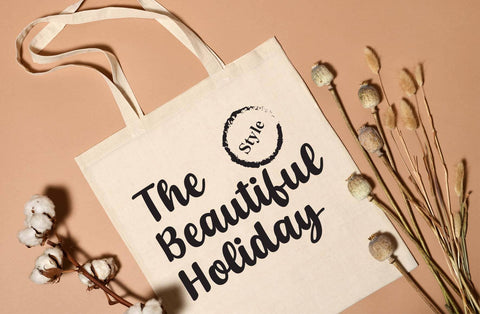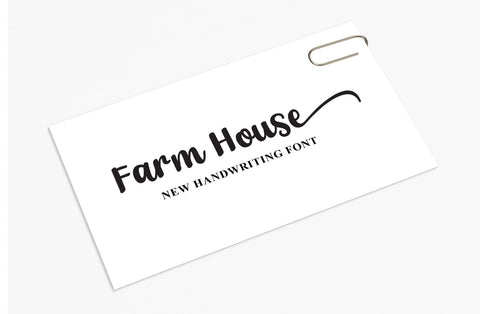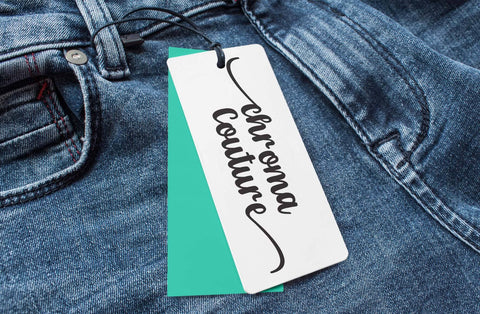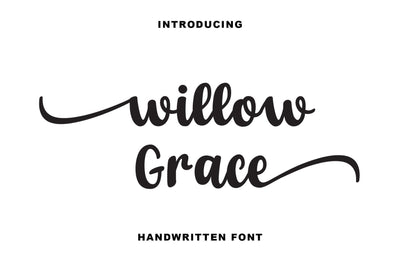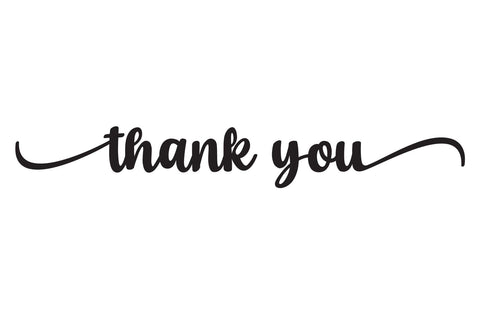
Willow Grace Handwritten Font
Willow Grace is a font that exudes softness and elegance. With graceful strokes and a feminine touch, this font will elevate any design project to the highest level, be it branding, titles, wedding designs, invitations, signs, logos, labels, and more!